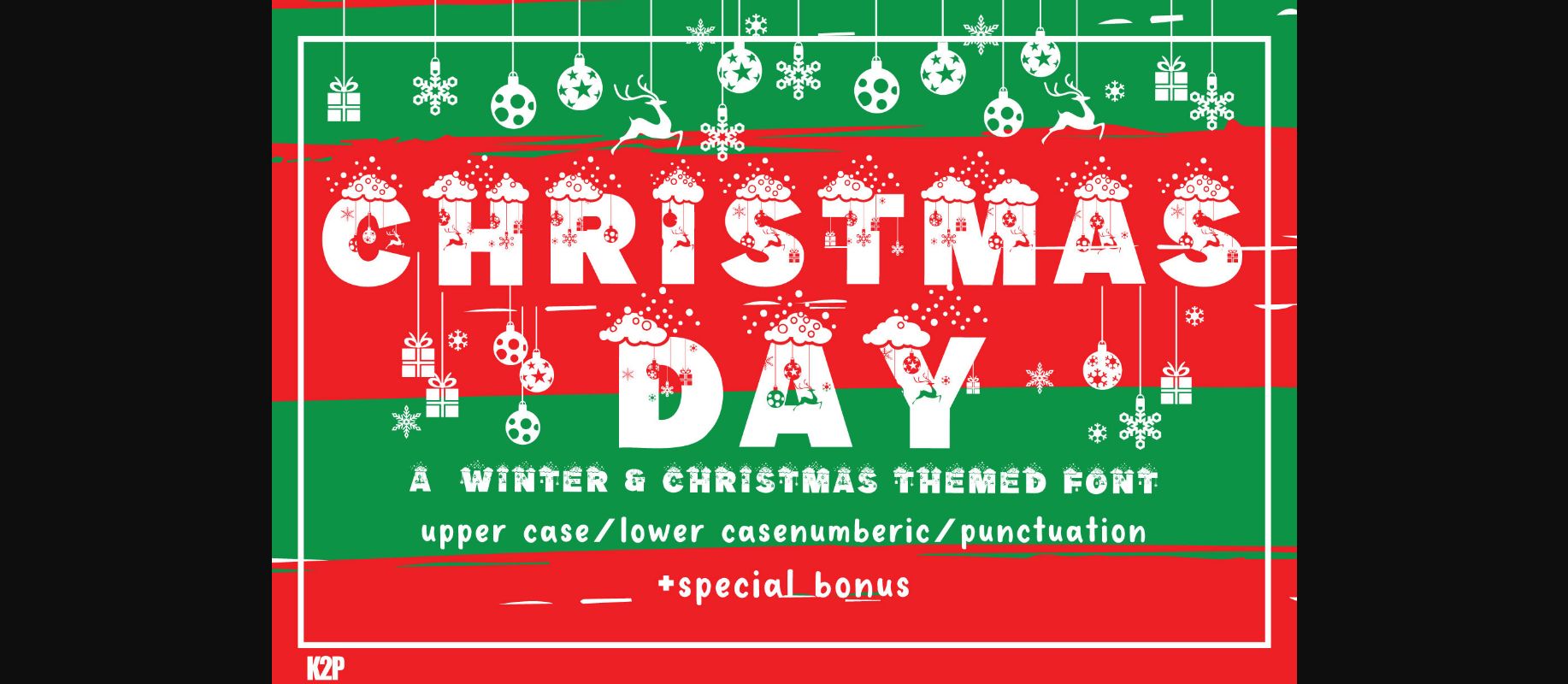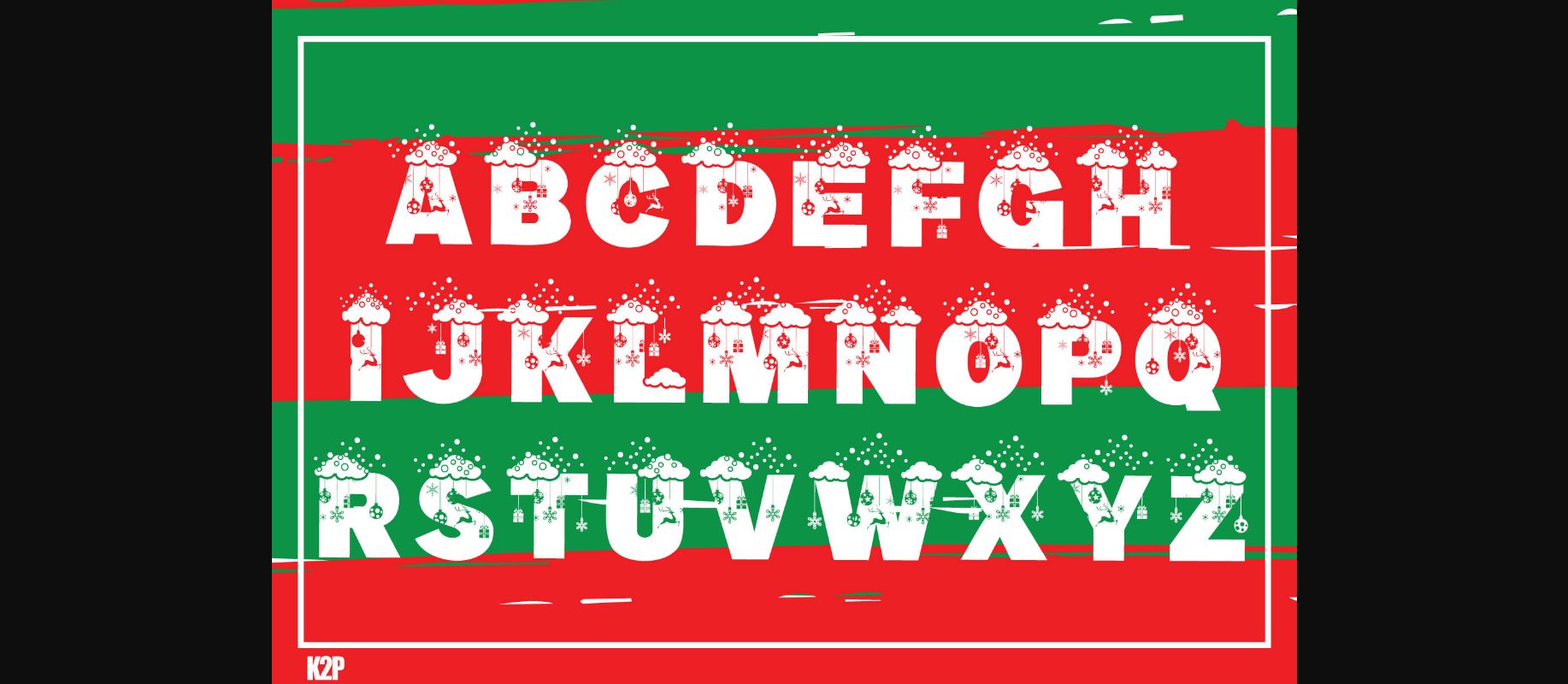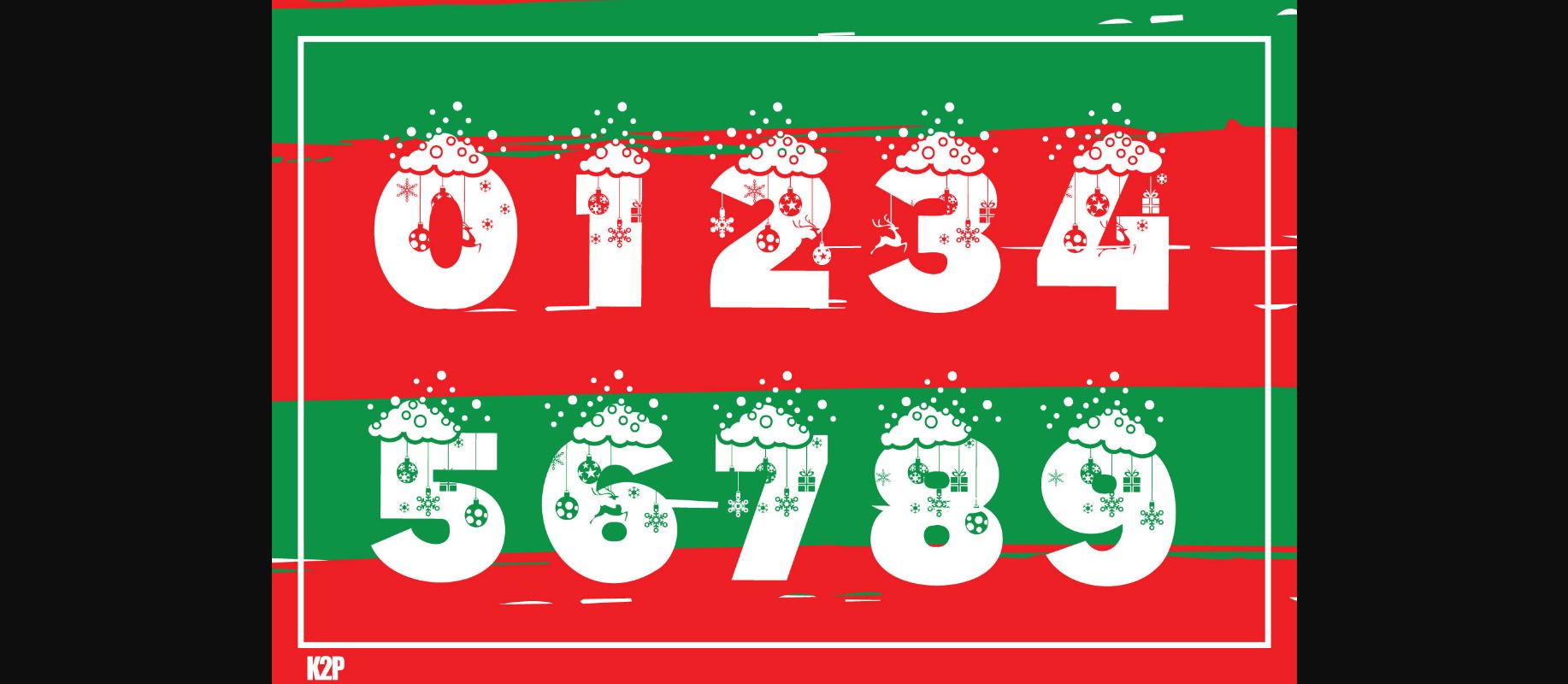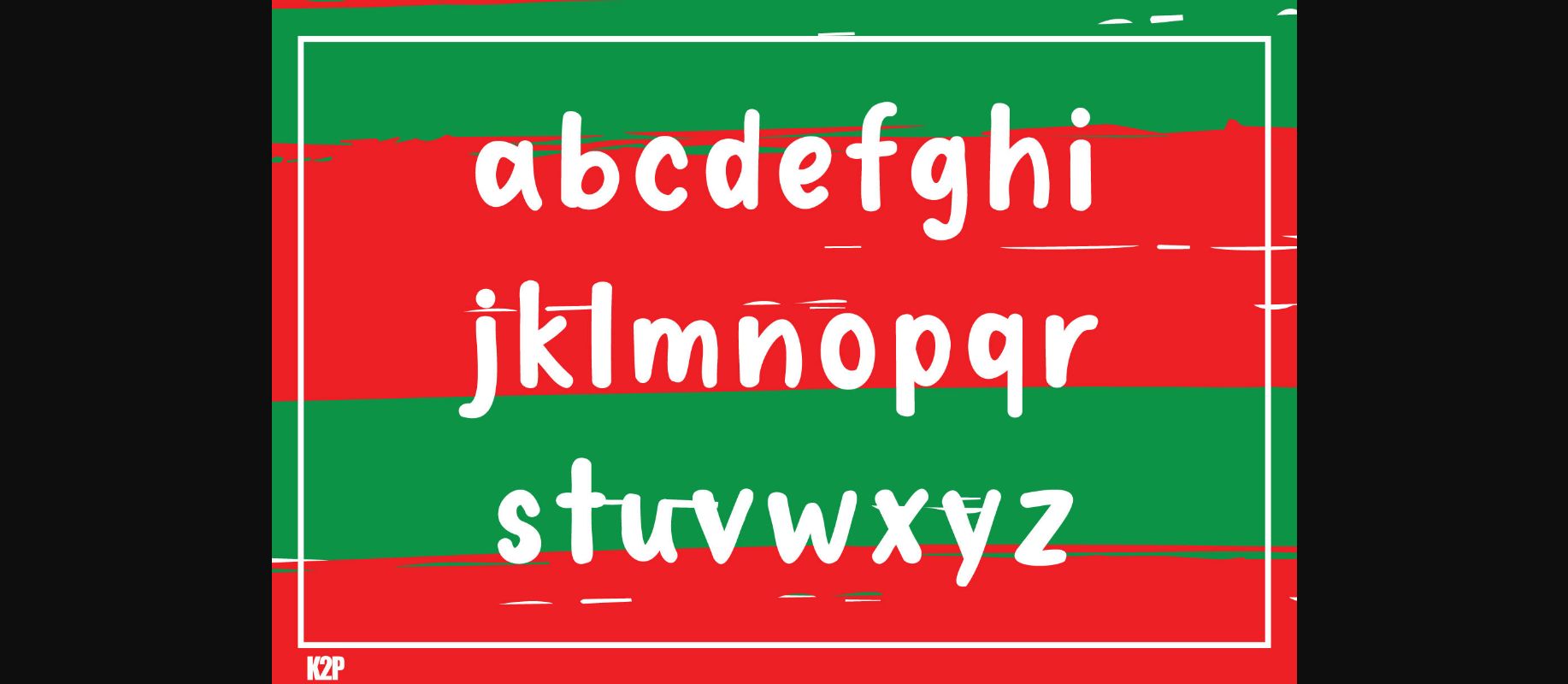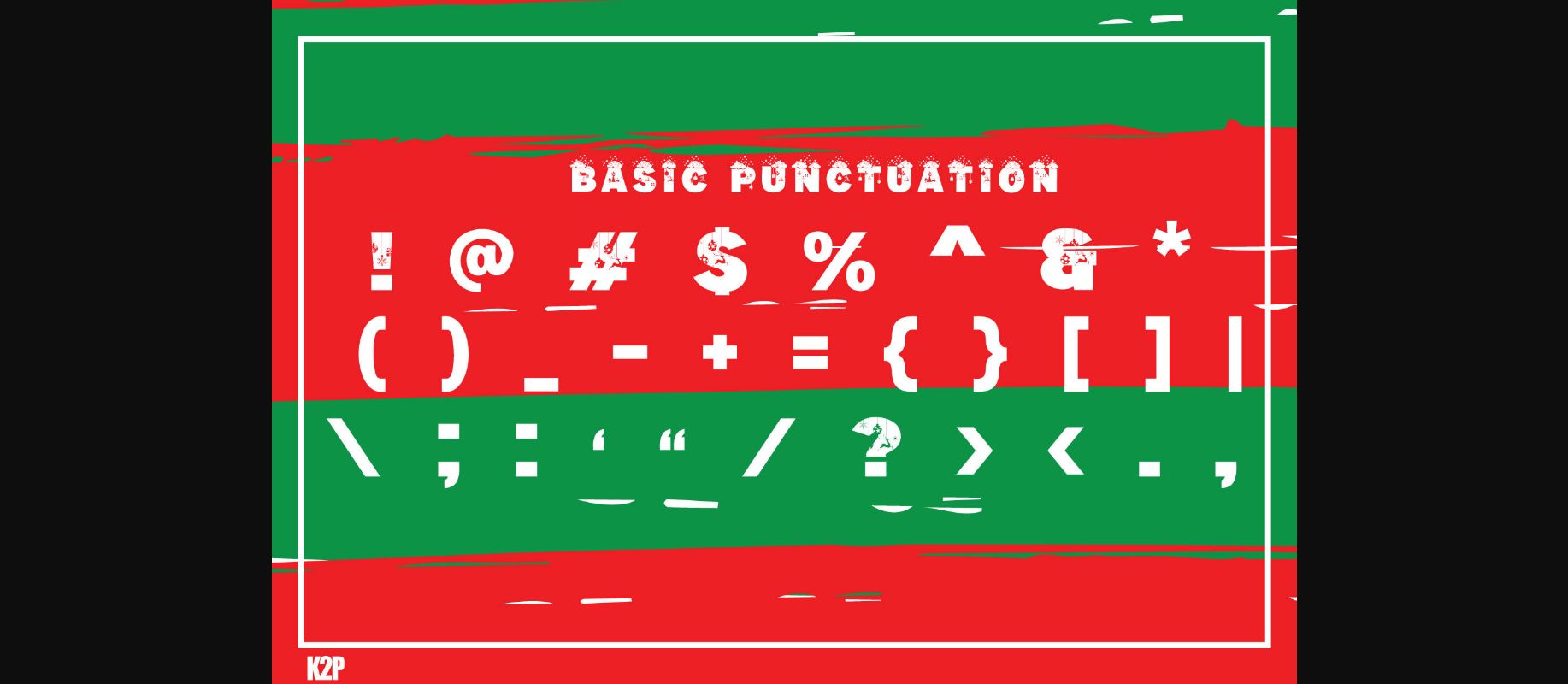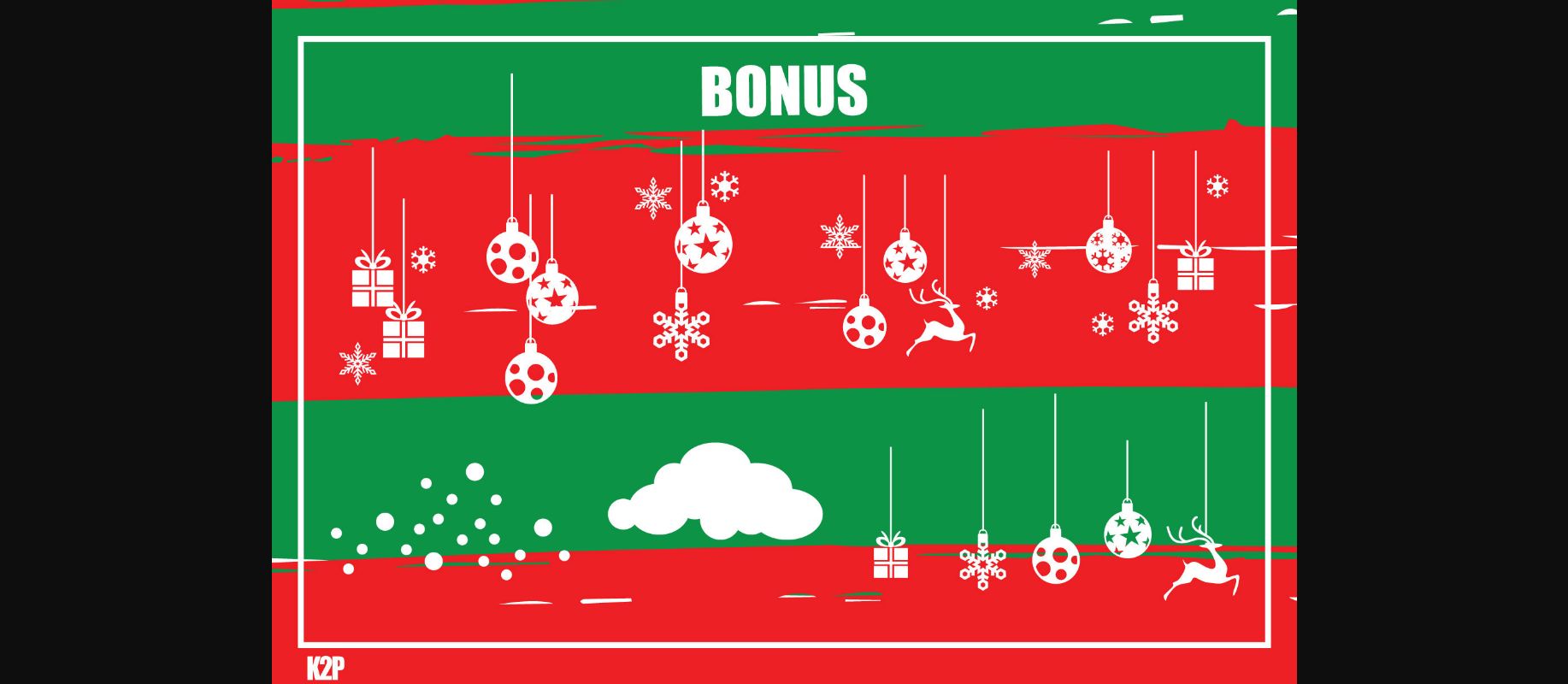
Christmas day is a thick lettered and incredibly unique decorative font. It can be used for various design ideas, particularly those related to the Christmas Holiday.